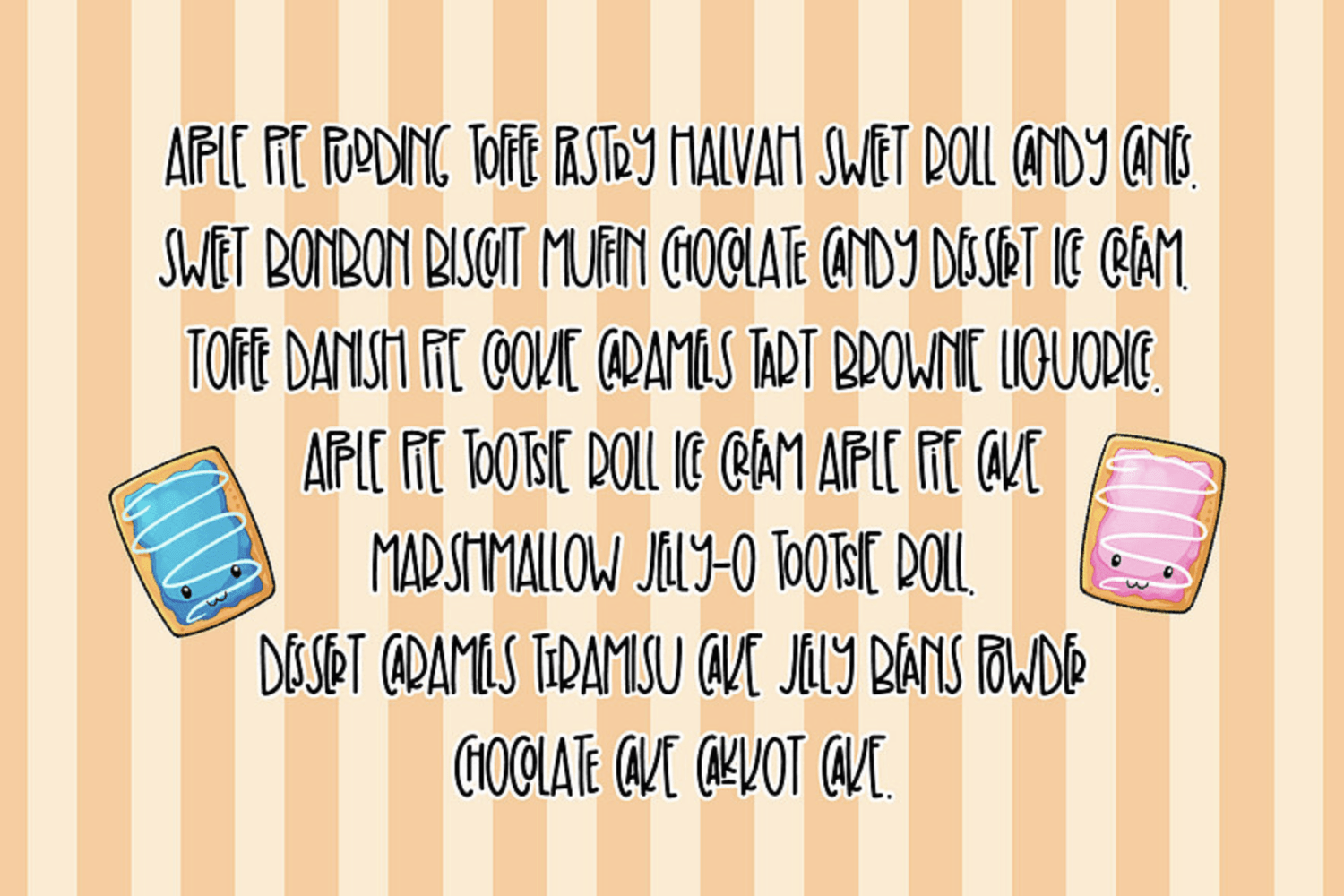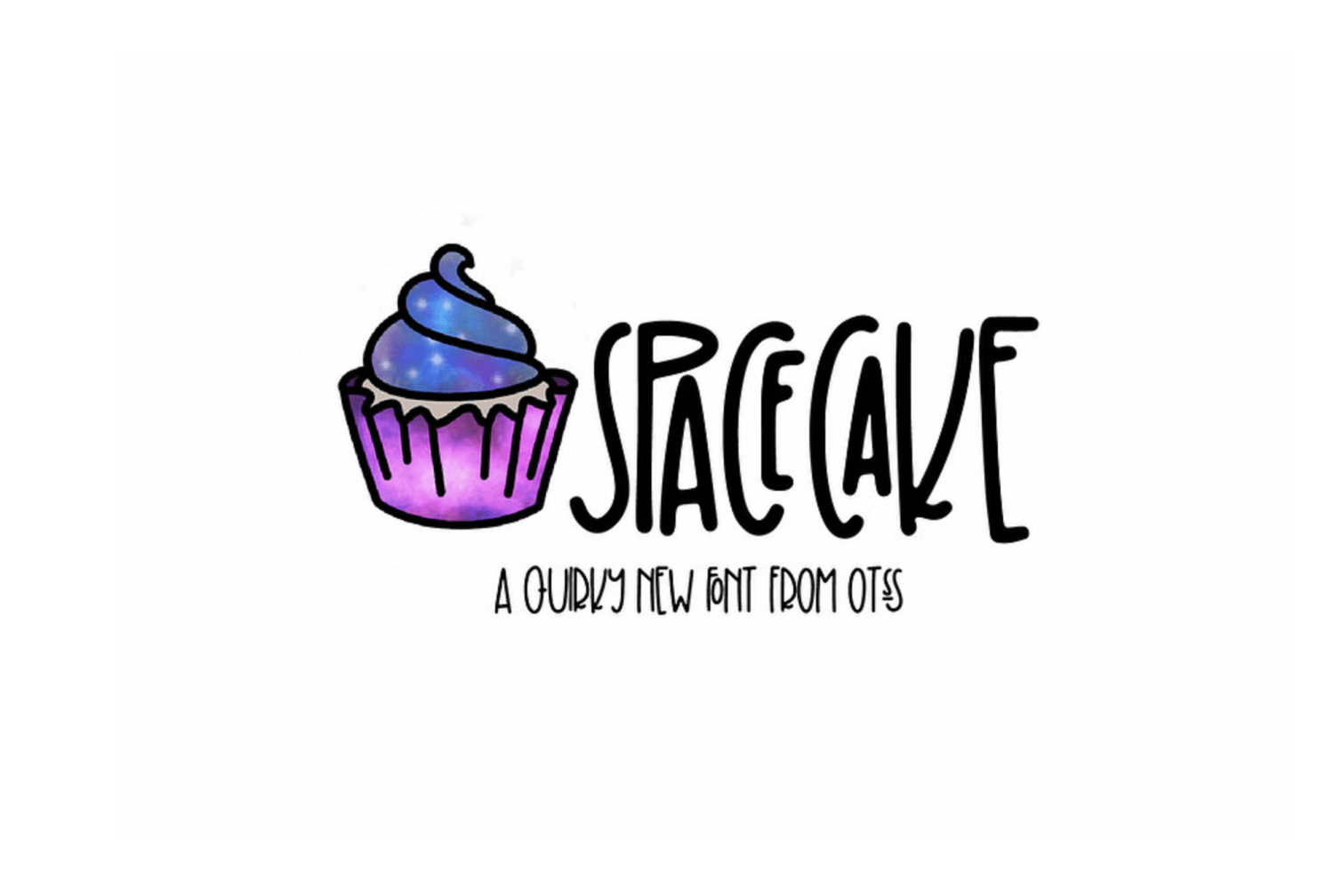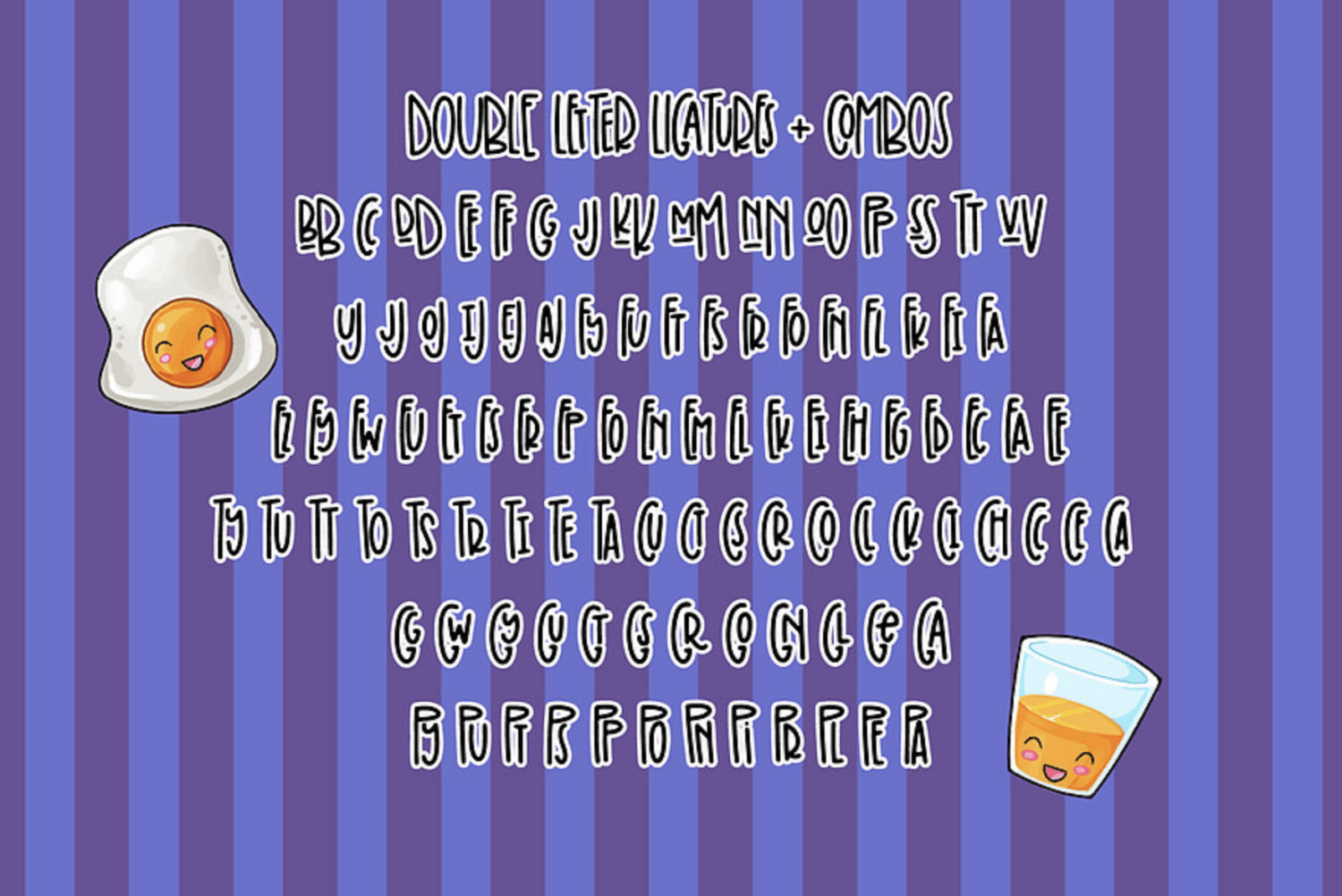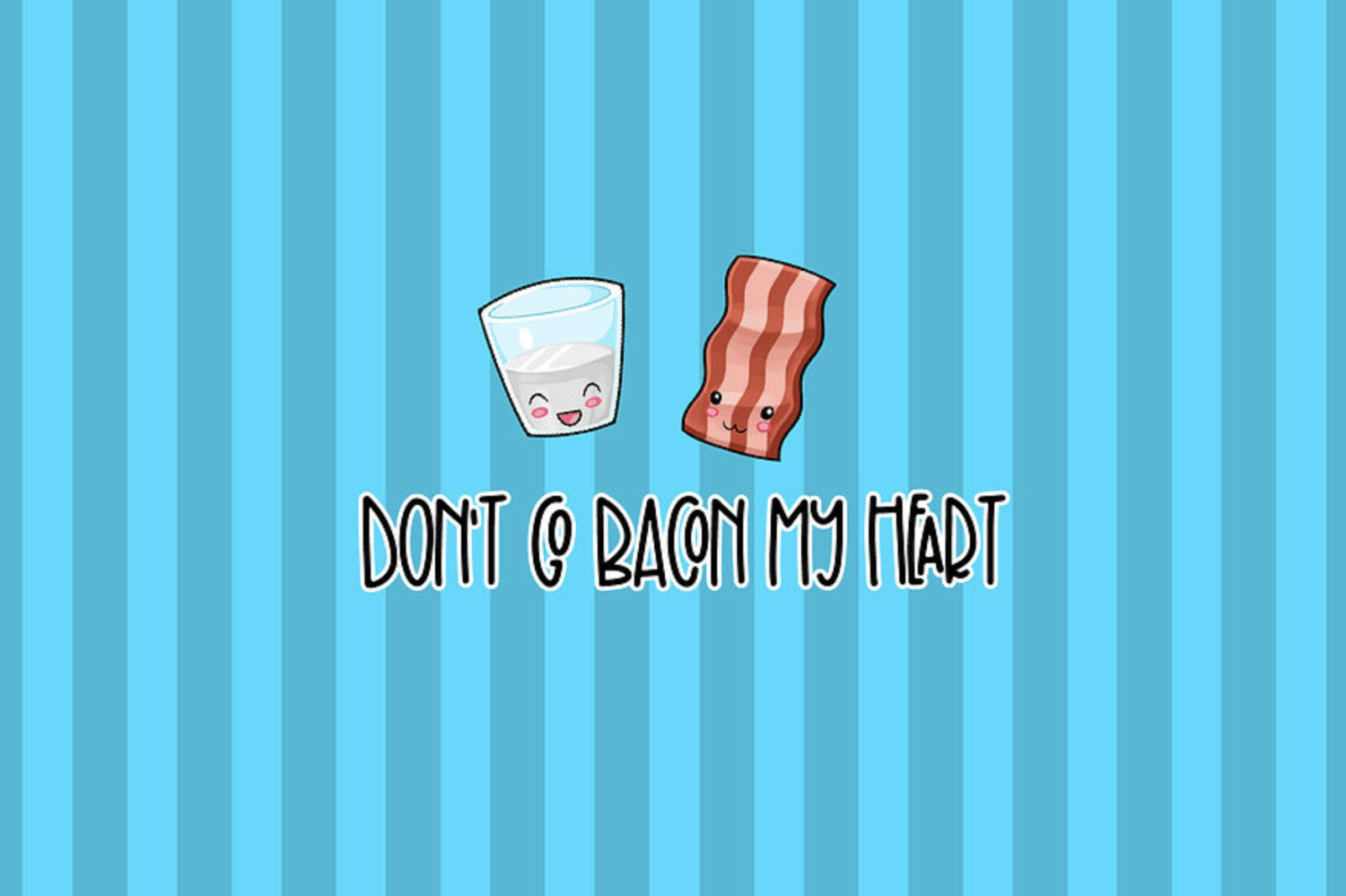
HomeFont BrosSans SerifSpace Cake Sans SerifWacky Space Cake FacebookXPinterestWhatsApp 1 of 4 About Space Cake Who loves stacked fonts? I DO! Meet SpaceCake! Multilingual, alternates, ligatures and more!  DOWNLOAD NOW People also explored Monomalith Font Salimo Font Easter Blessings Font Ramine Font Reclaim Glory Font Milk Font Spooky Mummy Font Coffee Latte Font Jungle Cruise Font 294 0 TagsSpace Cake Font Previous articlePistonNext articleDandy JY LEAVE A REPLY Cancel reply Comment: Please enter your comment! Name:* Please enter your name here Email:* You have entered an incorrect email address! Please enter your email address here Website: Save my name, email, and website in this browser for the next time I comment. Personal Use Free Valentines Day Personal Use Free Read more about this font Good Mood Personal Use Free Read more about this font Milda Personal Use Free Read more about this font Maharany Personal Use Free Read more about this font BLOG Modern Sans-Serif Fonts That Brands Love in 2025 In 2025, modern sans-serif fonts remain a top choice for brands looking to project clarity, professionalism, and... Using Fonts in Digital Marketing: Tips to Strengthen Your Brand Identity Fonts That Capture the Spirit of New York City 5 Fonts That Will Dominate Design Trends in 2026